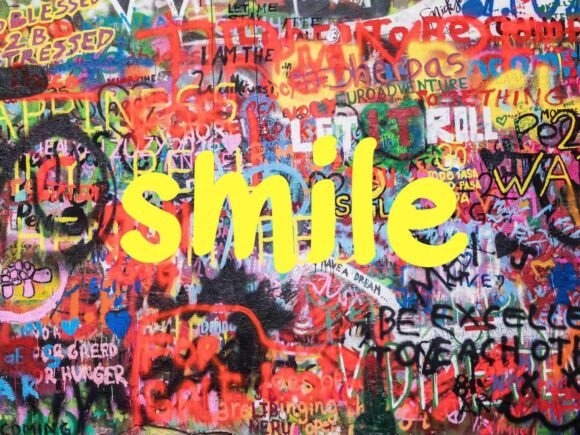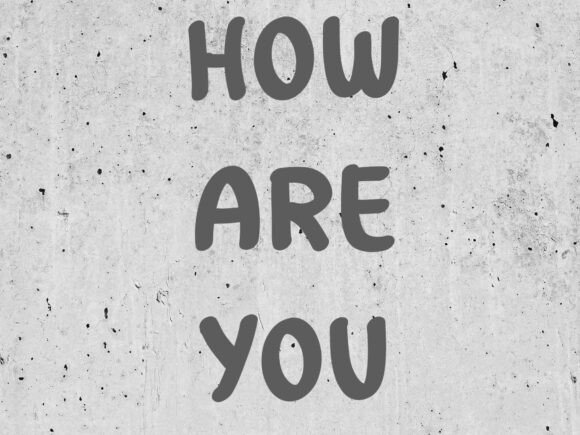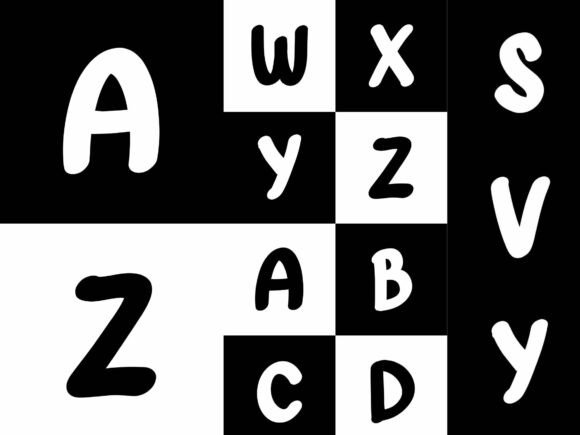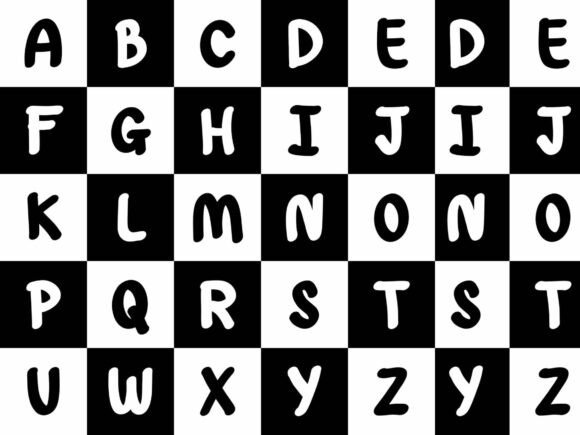
Express Love with Style: The Conversation Font ❤️✨
Are you looking for a font that speaks the language of love, warmth, and heartfelt emotions? Look no further than the Conversation Font! This charming, hand-drawn font is perfect for adding a personal touch to your designs, making it ideal for romantic messages, personalized cards, and heartfelt projects.
Why Choose Conversation Font?
The Conversation Font is a unique and versatile font that offers a range of benefits for designers and crafters. Here are just a few reasons why you should choose this font for your next project:
- Playful and Handcrafted: The Conversation Font is carefully hand-drawn to add a personal, cozy vibe to your creations. Its playful and whimsical design makes it perfect for projects that require a touch of warmth and personality.
- Versatile Use: This font is perfect for a wide range of projects, including greeting cards, wedding invitations, love letters, and more. Whether you’re designing for Valentine’s Day, anniversaries, or just to say “I Love You,” the Conversation Font is the perfect choice.
- High-Quality Design: The Conversation Font is designed to be crisp and professional, making it ready to make an impact on any platform. Whether you’re designing for print or digital, this font will ensure that your message is conveyed in a beautiful and elegant way.
The Perfect Font for Romantic Messages
The Conversation Font is specifically designed to help you express your feelings in a unique and stylish way. Its charming and hand-drawn design makes it perfect for romantic messages, allowing you to add a personal touch to your words. Whether you’re writing a love letter, creating a personalized card, or designing a romantic poster, this font is sure to make your message stand out.
Tips for Using Conversation Font
Here are a few tips for using the Conversation Font in your designs:
- Pair it with Other Fonts: The Conversation Font can be paired with other fonts to create a unique and stylish design. Try pairing it with a bold font for headings and a clean font for body text.
- Experiment with Colors: The Conversation Font looks great in a range of colors, from soft pastels to bold and bright hues. Experiment with different colors to find the perfect combination for your design.
- Add Decorations: The Conversation Font can be used with decorations such as flowers, hearts, and other romantic symbols to add a touch of whimsy to your design.
What You Can Create with Conversation Font
The Conversation Font is a versatile font that can be used to create a wide range of projects, including:
- Greeting Cards: Create personalized greeting cards for Valentine’s Day, anniversaries, and other special occasions.
- Wedding Invitations: Use the Conversation Font to create beautiful and elegant wedding invitations that set the tone for your special day.
- Love Letters: Write a love letter to your partner or loved one using the Conversation Font for a personal and romantic touch.
- Romantic Posters: Create a romantic poster using the Conversation Font to express your feelings in a unique and stylish way.
The Conversation Font is a charming and hand-drawn font that is perfect for adding a personal touch to your designs. With its playful and whimsical design, versatile use, and high-quality design, this font is ideal for romantic messages, personalized cards, and heartfelt projects. Whether you’re a designer or crafter, the Conversation Font is a must-have font in your collection. So why wait? Download the Conversation Font today and start expressing your love and feelings in a unique and stylish way! ❤️✨